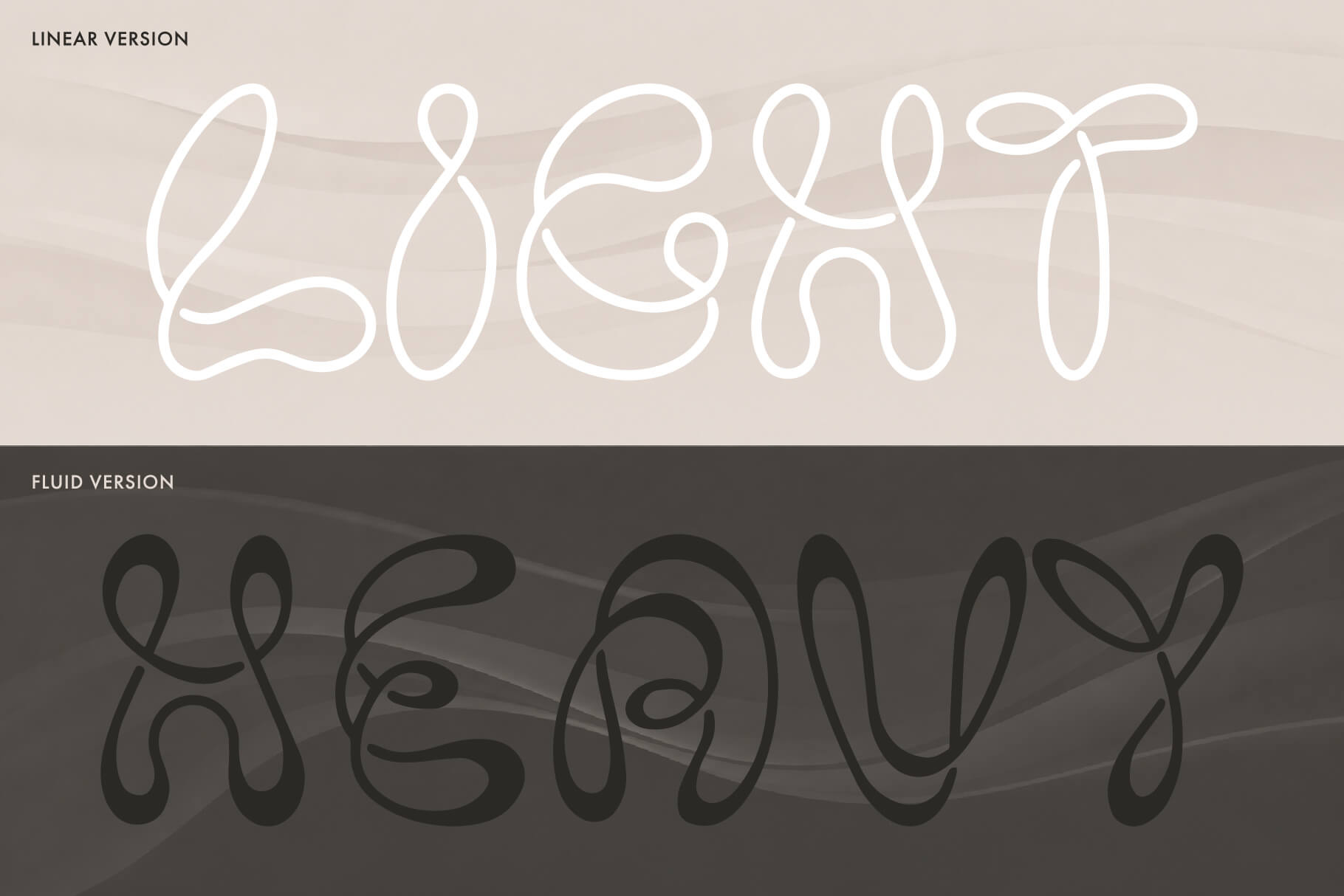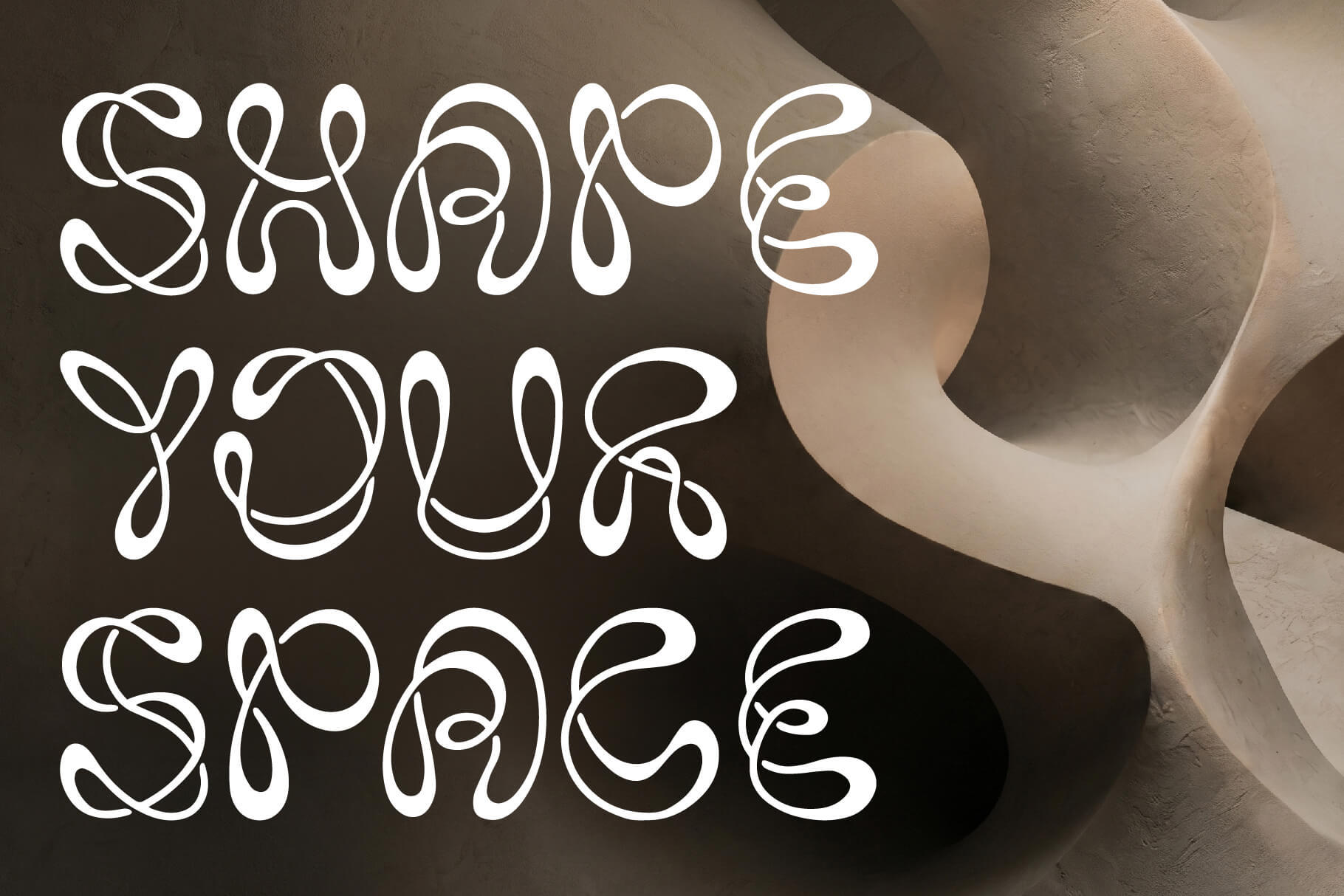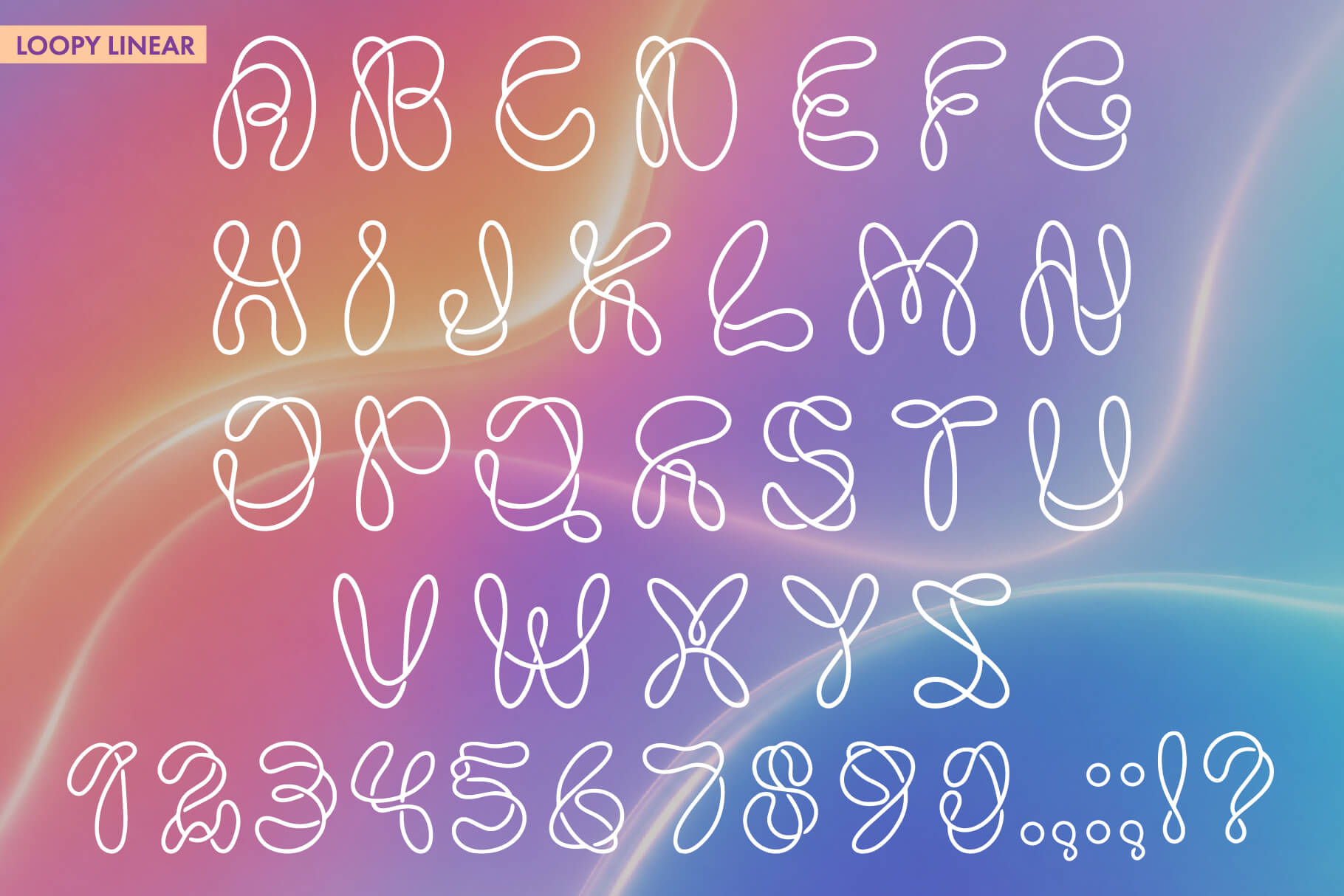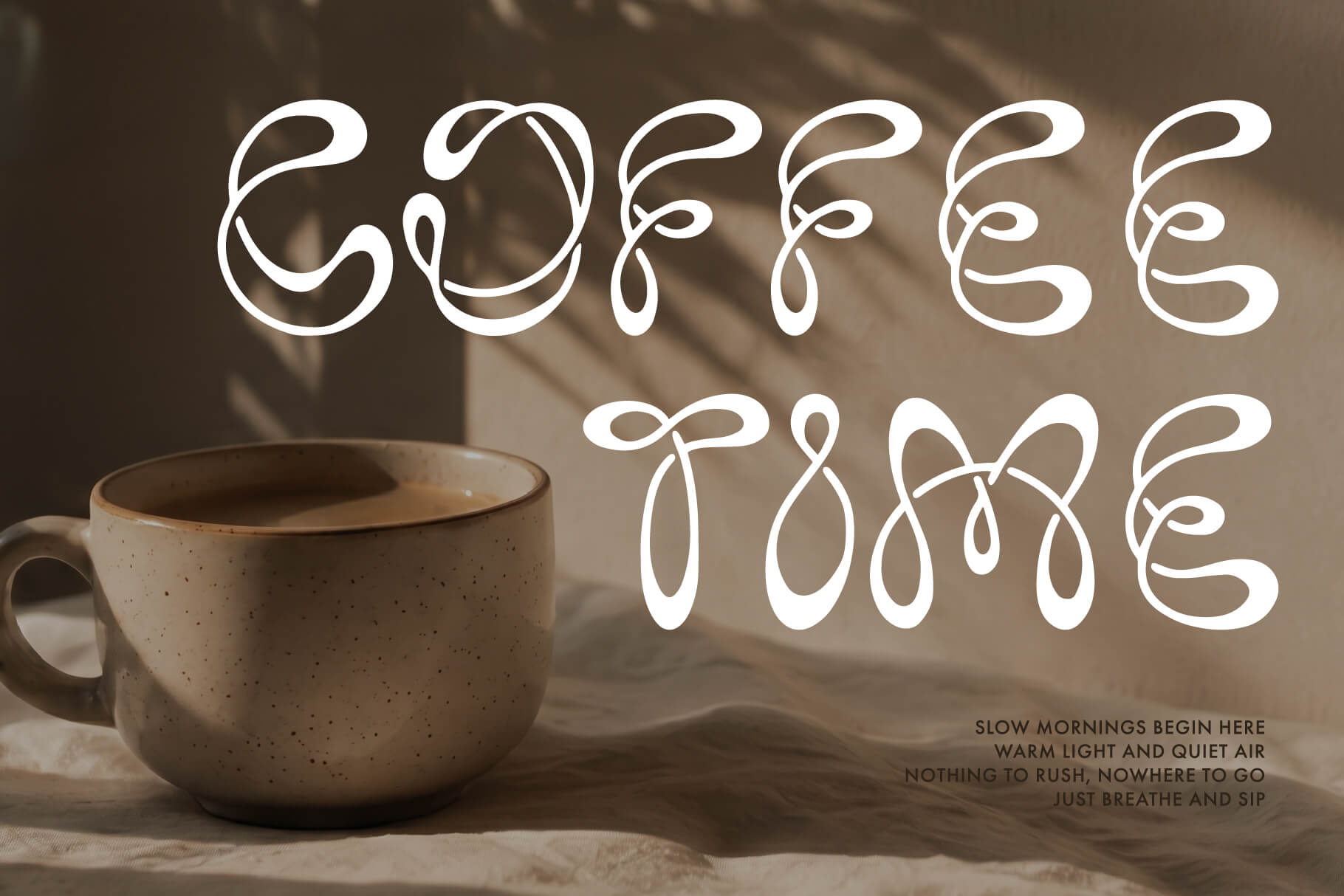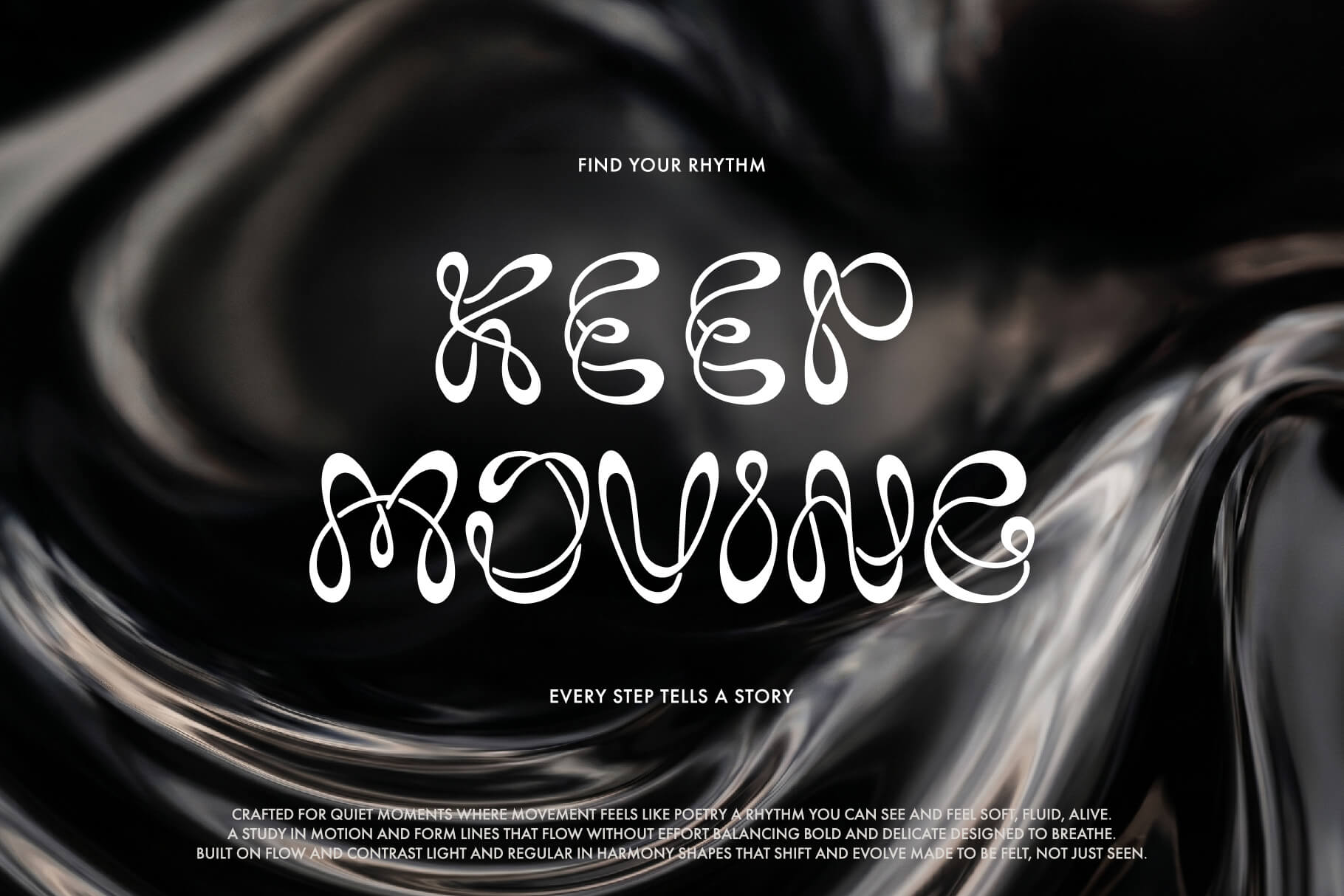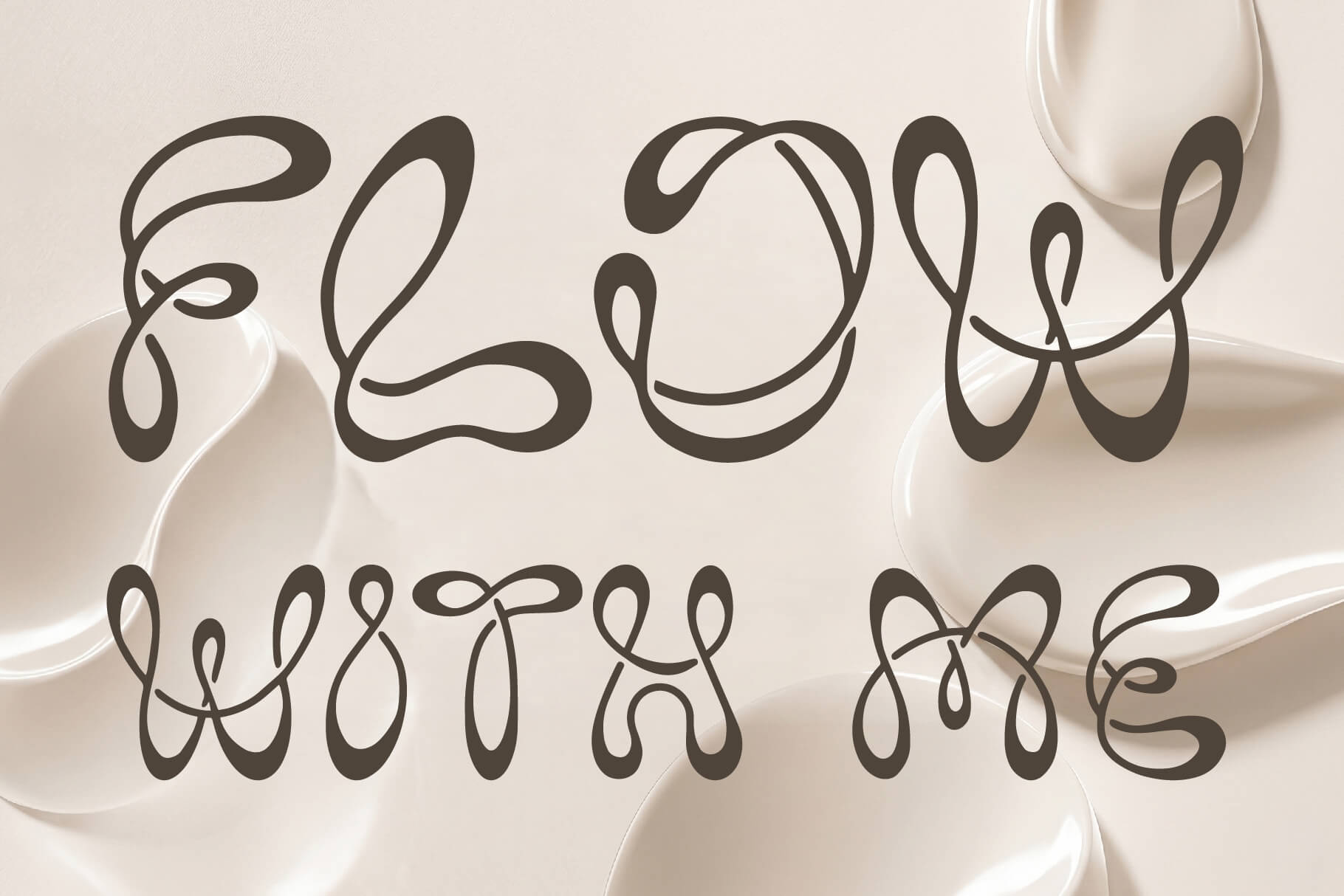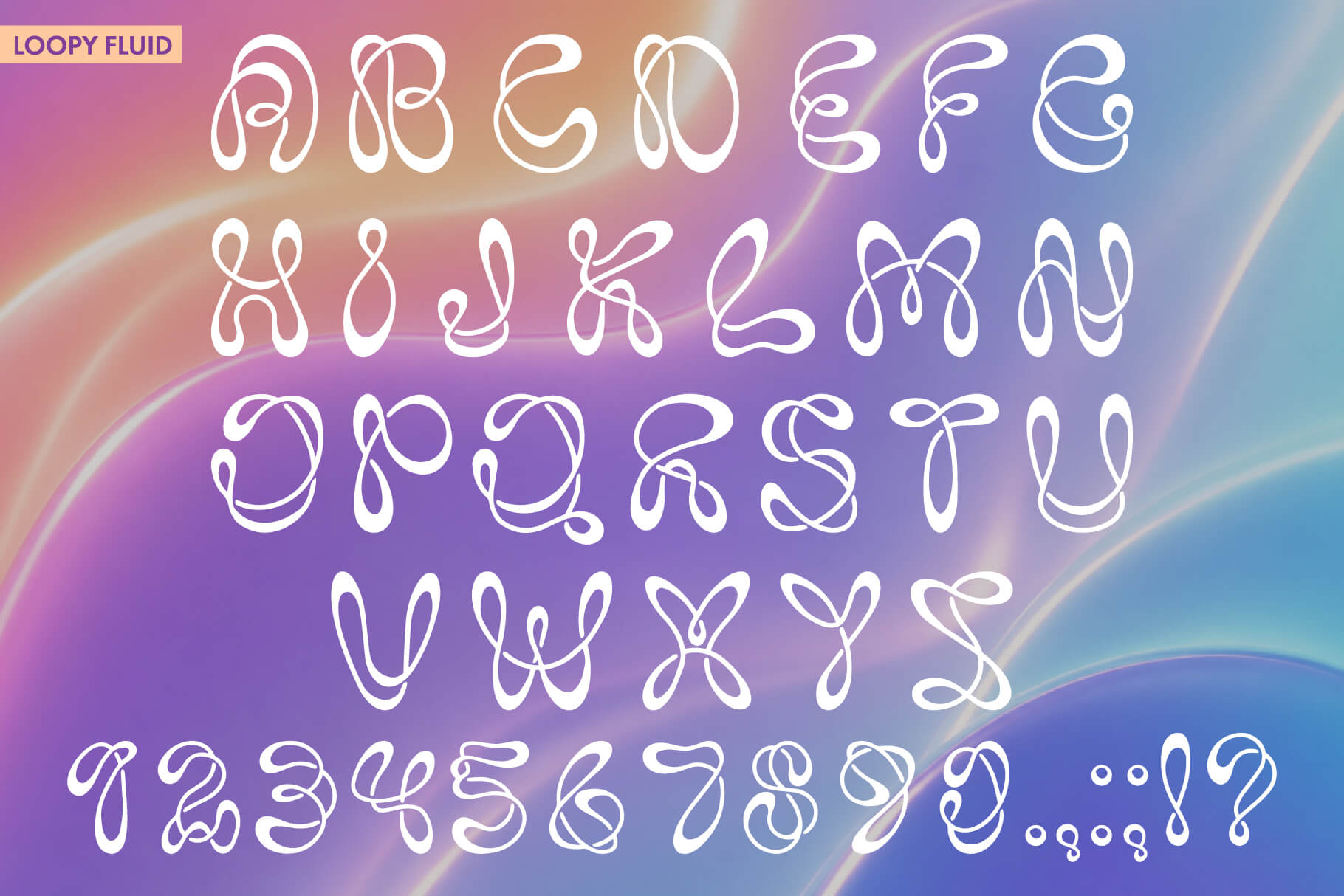
Loopy display font
Loopy is a groovy display typeface built around continuous, flowing looped letterforms.
It comes in two complementary styles — Loopy Fluid, with soft rounded connections, and Loopy Linear, a cleaner monoline cut — so you can switch between a bolder and a lighter feel.
The design leans into a playful retro mood while staying crisp and legible at display sizes.
Loop works beautifully for logos, packaging, posters, album covers and any branding that needs a warm, characterful headline.